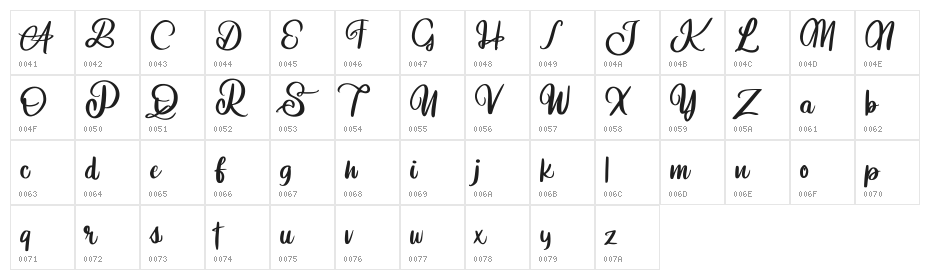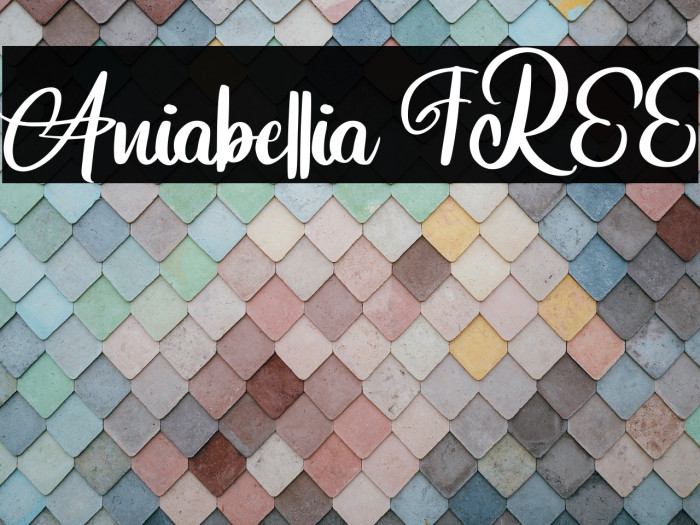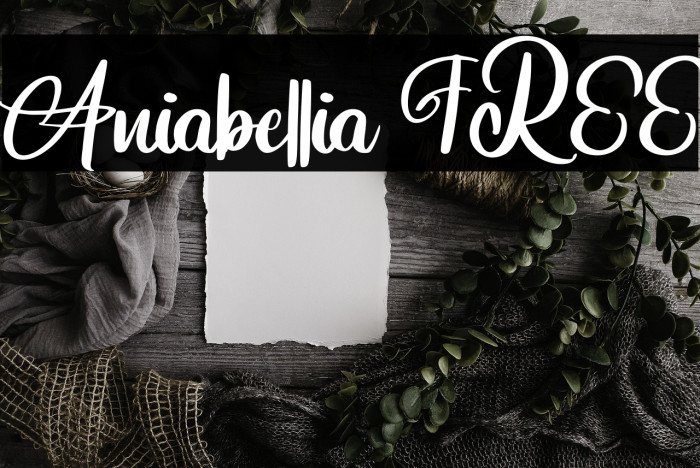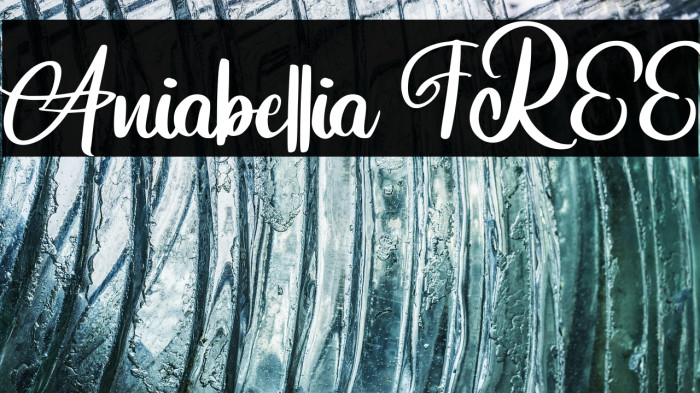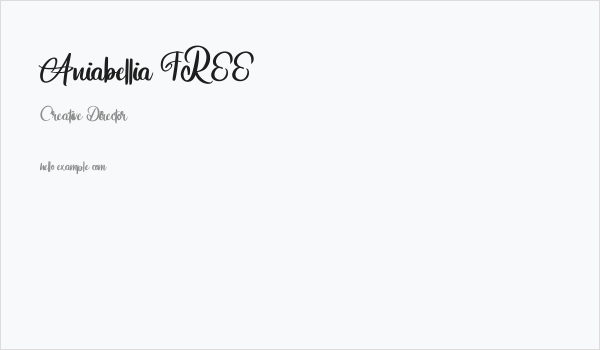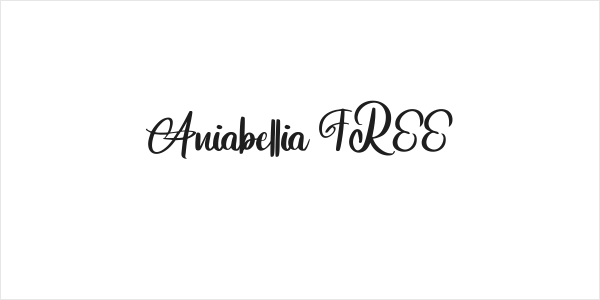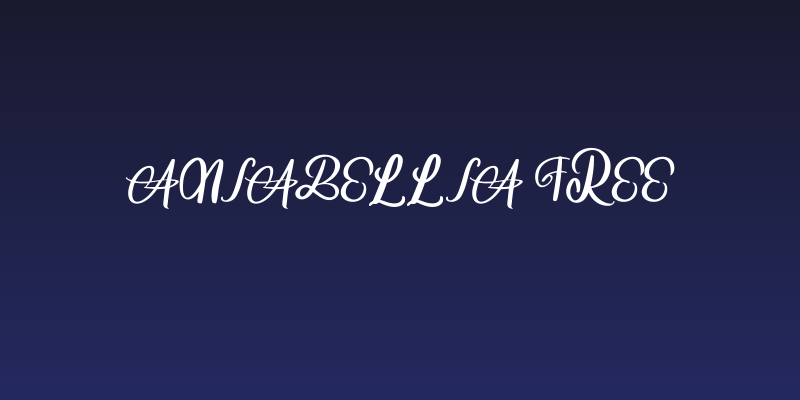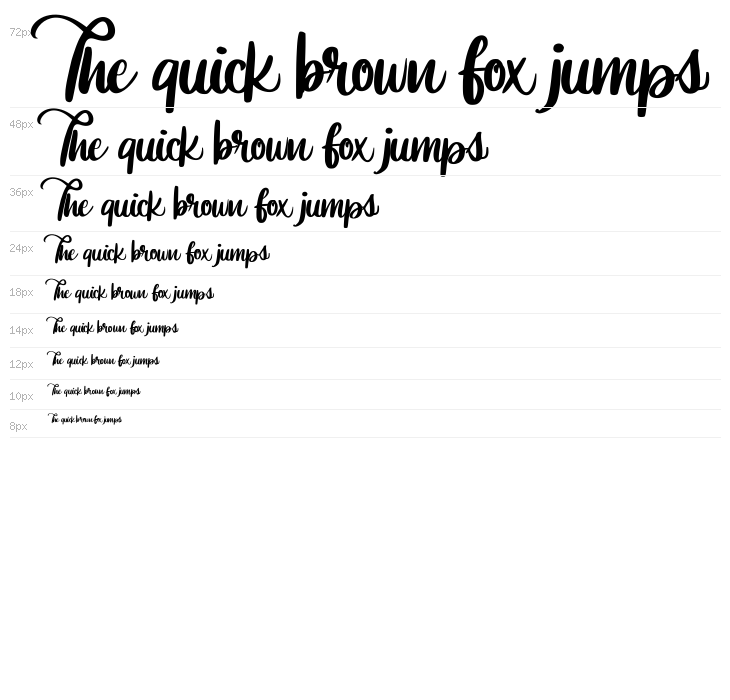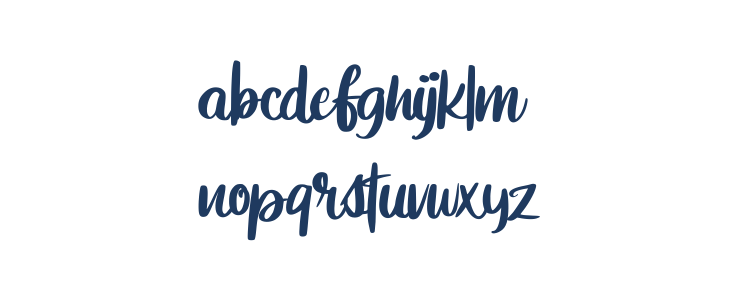
Aniabellia FREE Font
Aniabellia FREE Description
This font features a decorative script style with elegant, flowing lines and a playful yet sophisticated appearance. The uppercase letters are characterized by their intricate loops and swirls, giving a sense of movement and grace. The lowercase letters maintain a consistent style, with smooth curves and a slightly bolder appearance, enhancing readability while preserving the decorative nature. The font's overall design is cohesive, with a harmonious balance between the ornate uppercase and the more grounded lowercase. This font is ideal for adding a touch of elegance and creativity to any project.